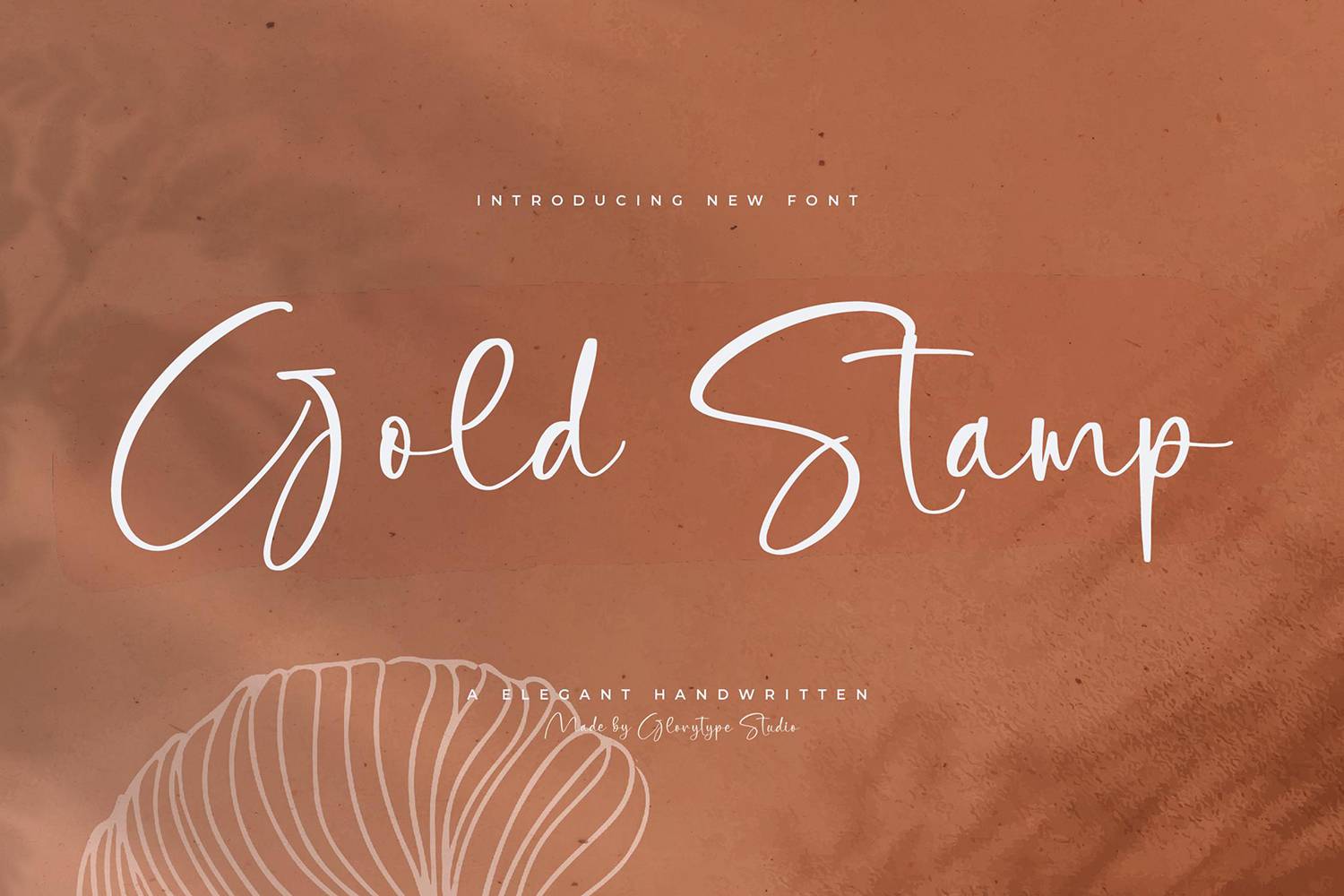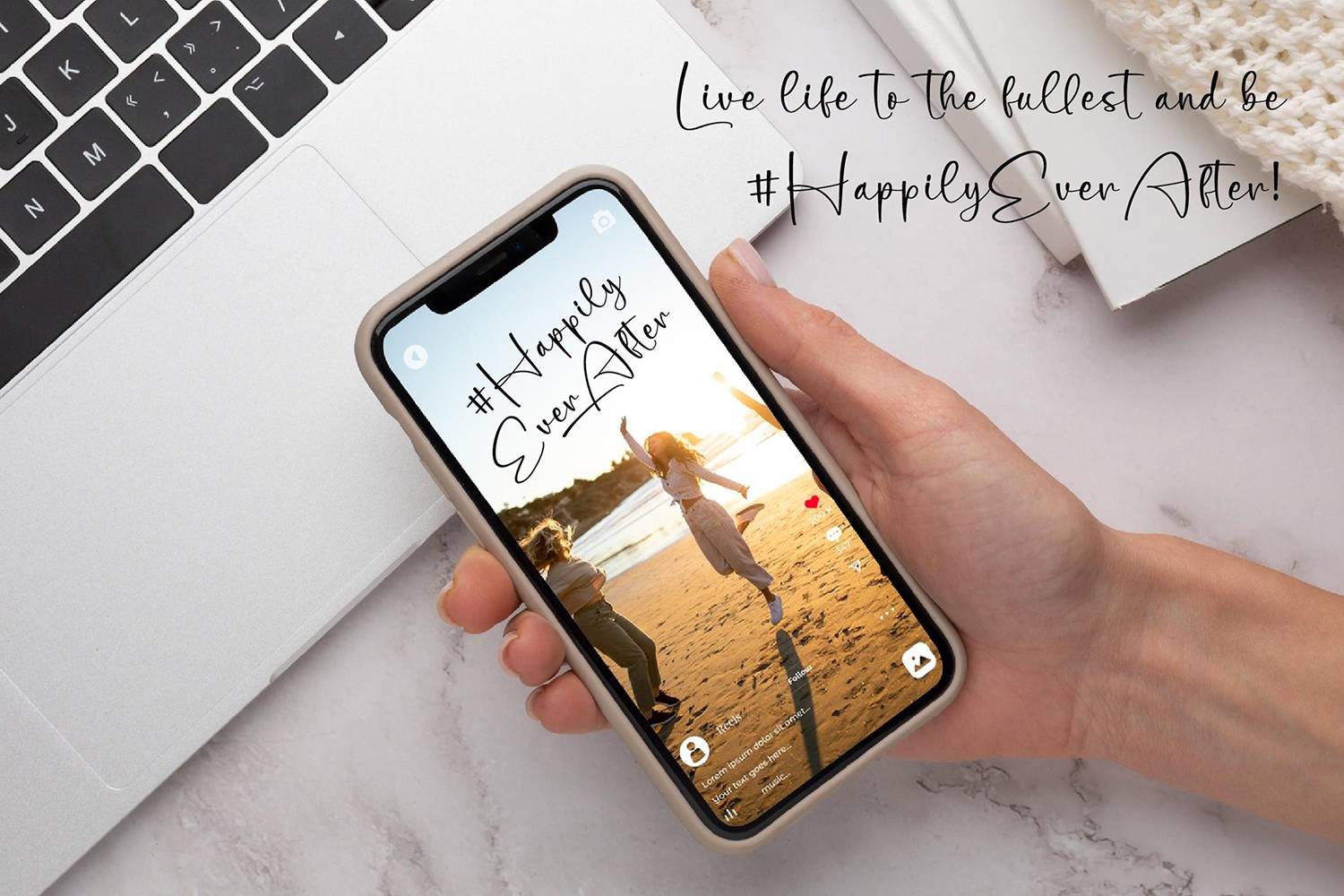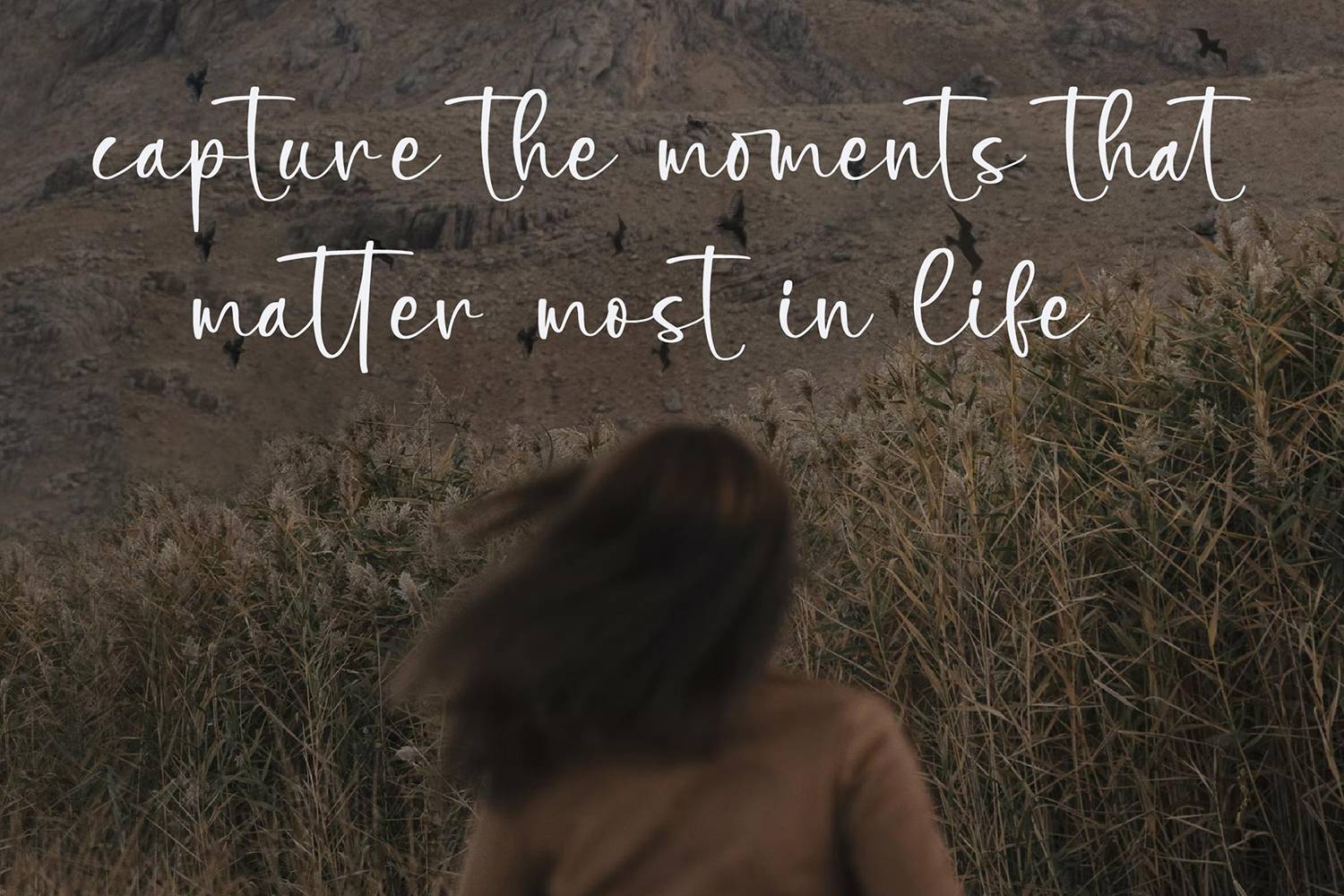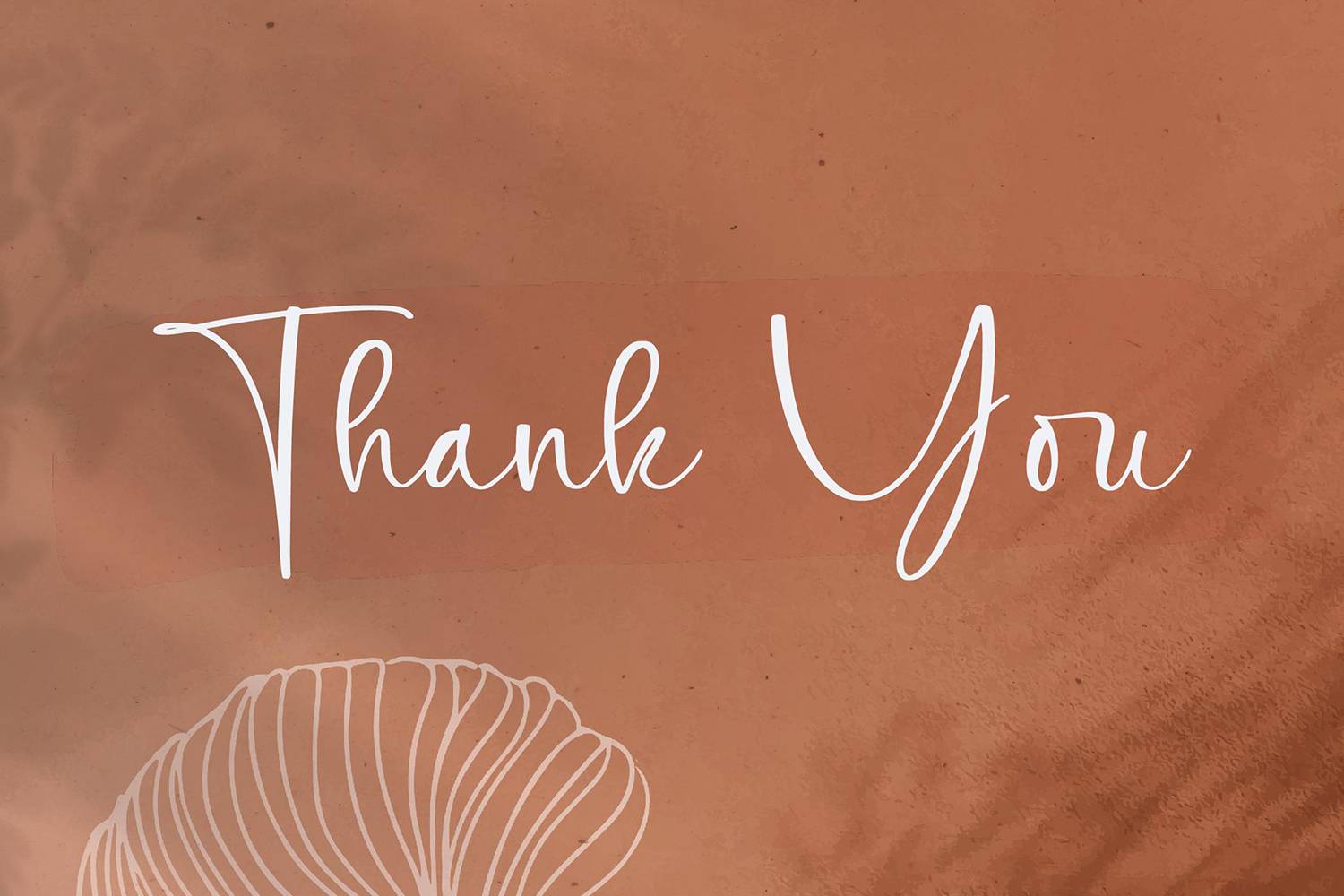
Gold Stamp Font is a delicate, handwritten script with a light, airy feel and elegant strokes that vary gently in thickness. Its narrow, tall letterforms and playful swashes give it a modern and whimsical personality, making it ideal for stylish branding, wedding invitations, and creative projects that seek a personal, artistic touch. This font works beautifully in both headlines and decorative text, lending a sophisticated yet approachable vibe.
Gold Stamp Font
About Gold Stamp Font